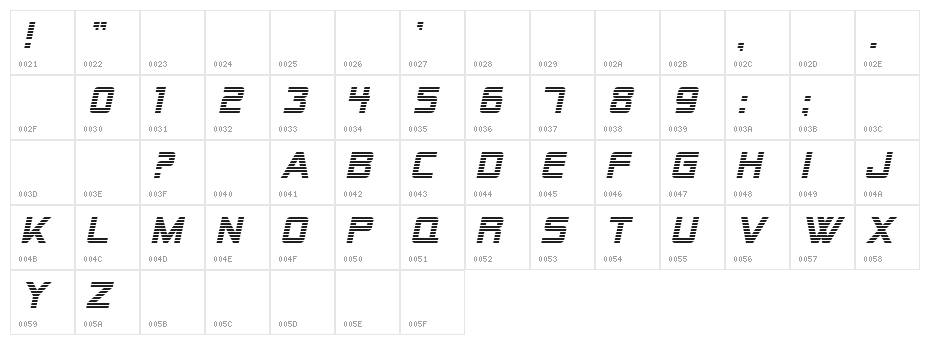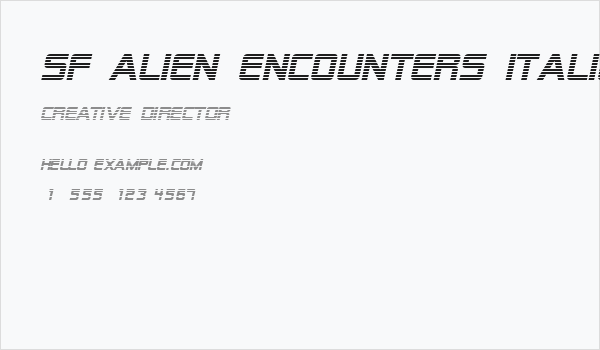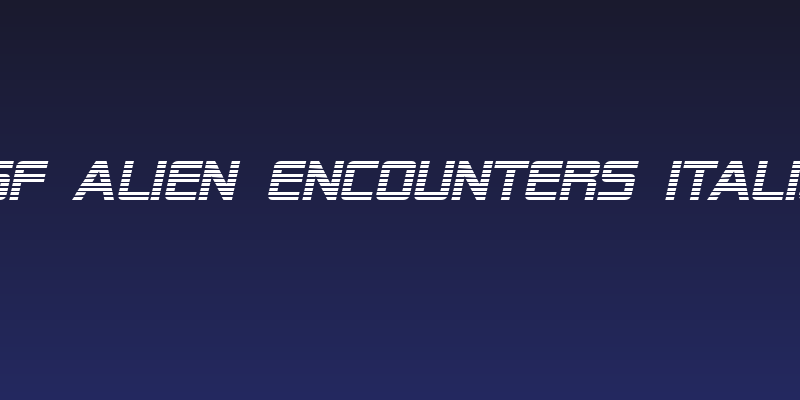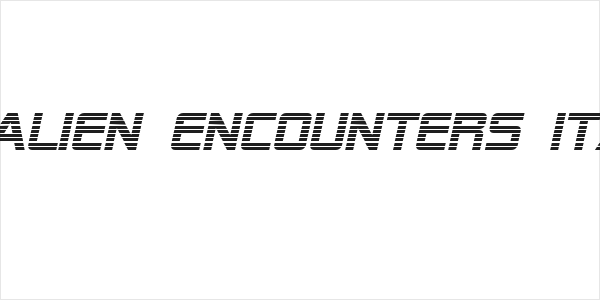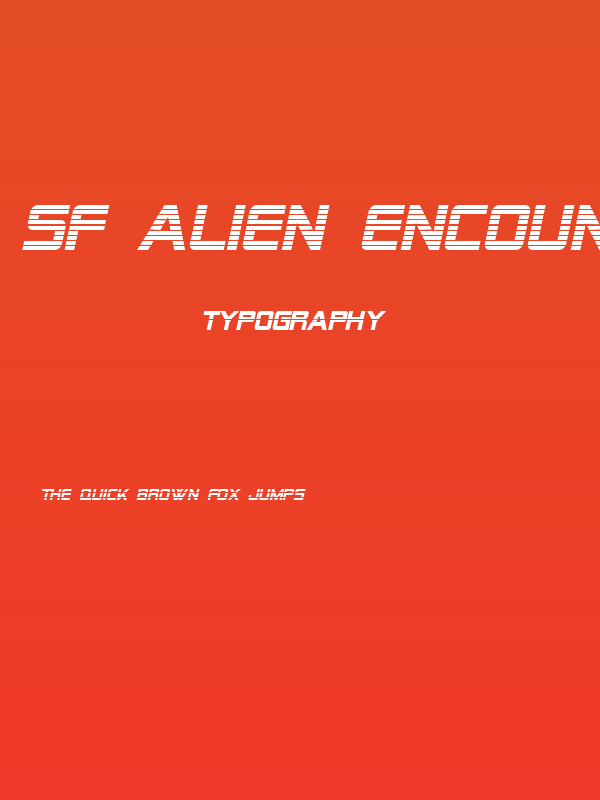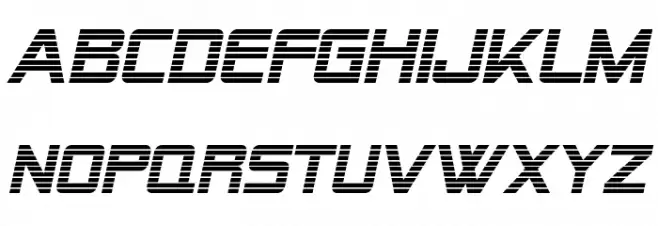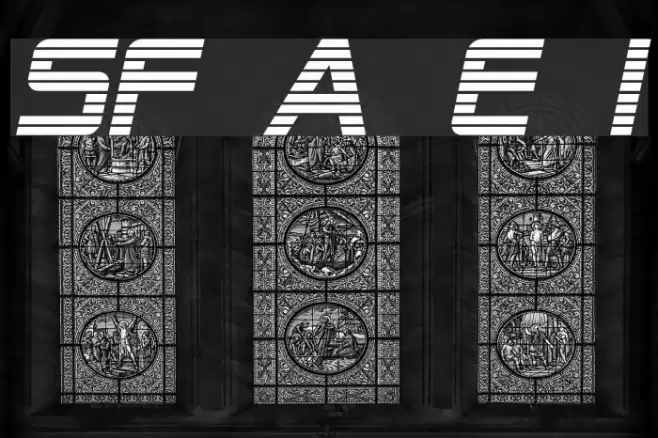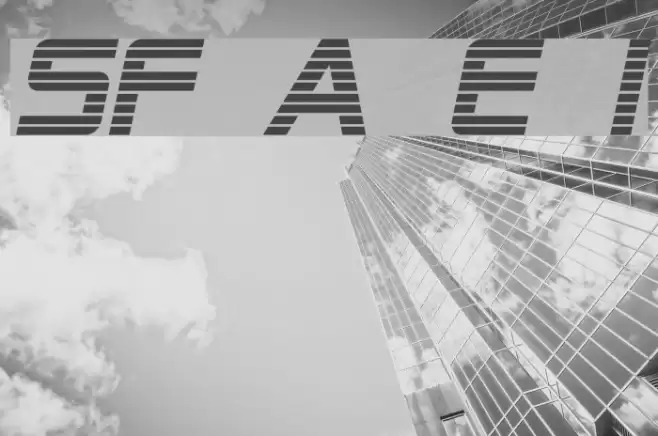
SF Alien Encounters Italic Font
SF Alien Encounters Italic Description
This font features a futuristic and dynamic design, characterized by its italicized and segmented letterforms. The characters are composed of horizontal lines that create a sense of movement and speed, reminiscent of digital or sci-fi aesthetics. The uppercase and lowercase letters maintain a consistent style, with sharp angles and a sleek appearance. The numerals and special characters follow the same design principles, ensuring uniformity across all glyphs. This font is ideal for projects that require a modern and tech-inspired look, offering a unique visual impact.
| Proposed Projects | Ideal for sci-fi themed designs, tech branding, video game interfaces, and futuristic posters. |